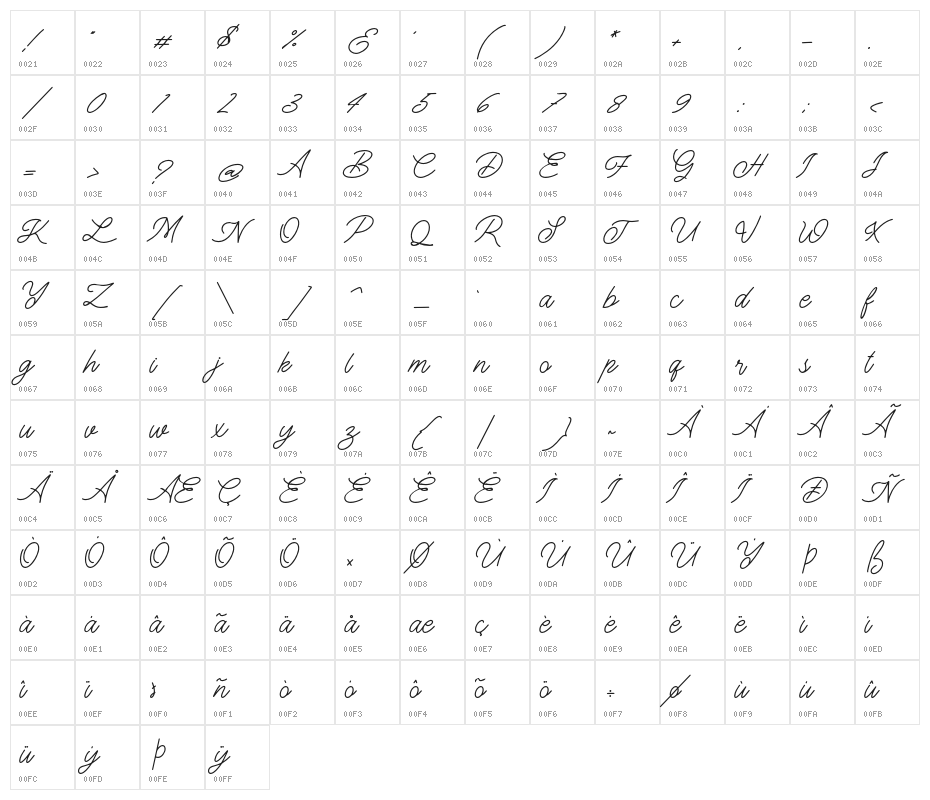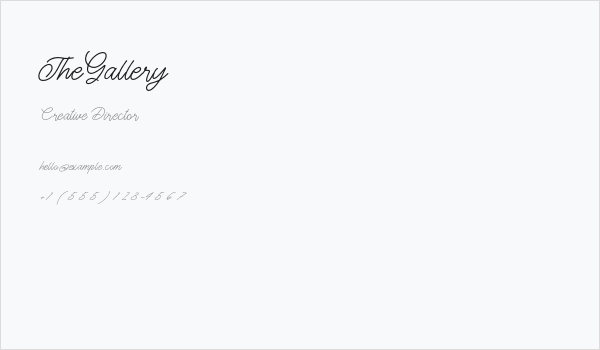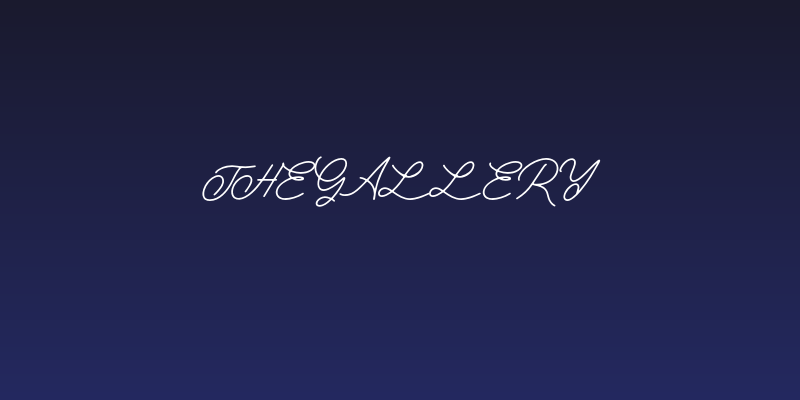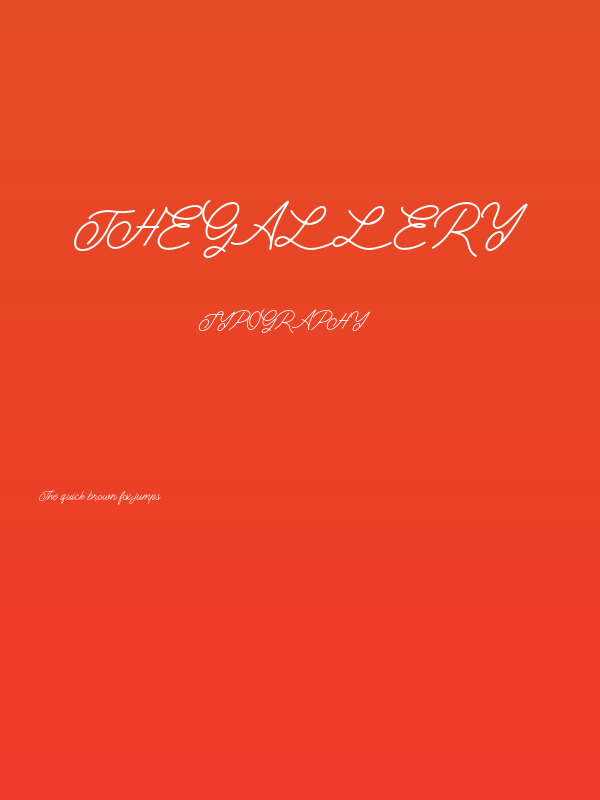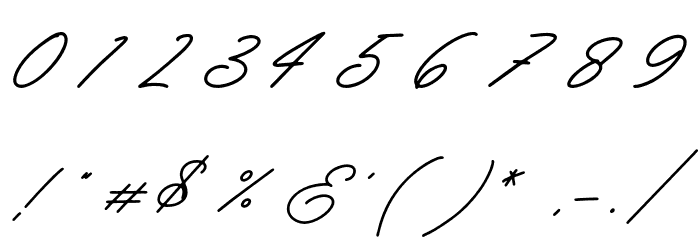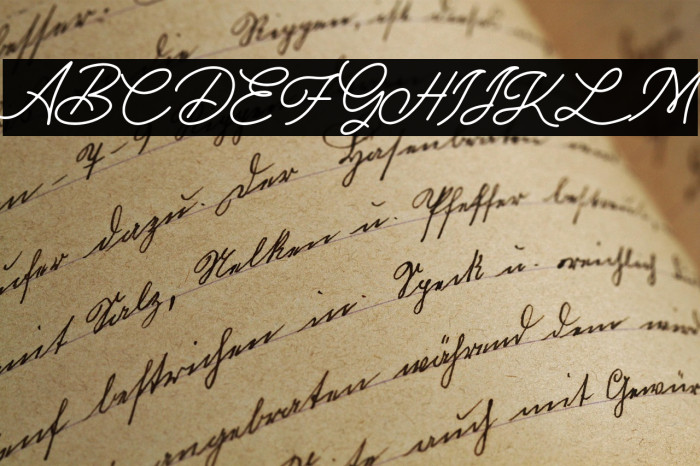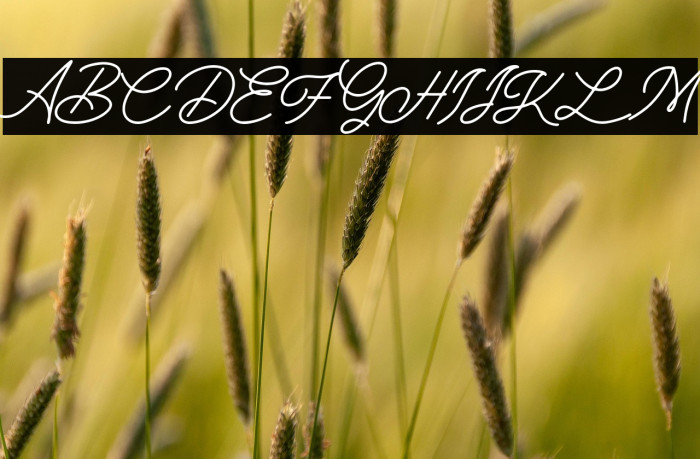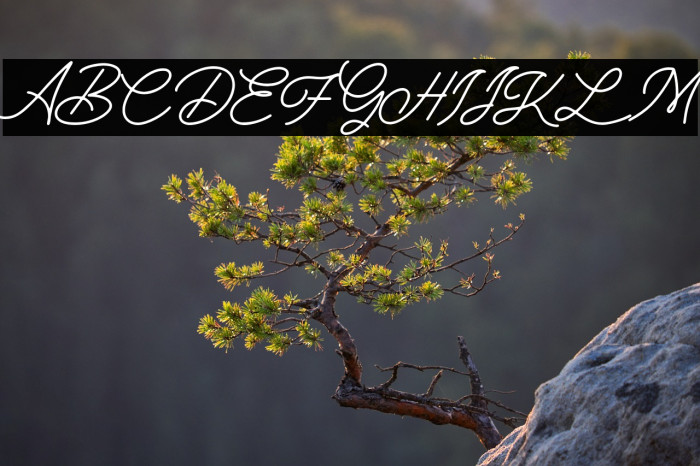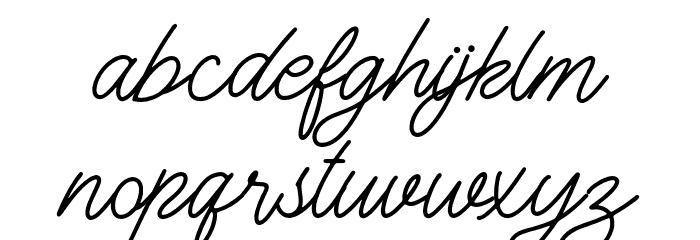
TheGallery Font
TheGallery Description
This elegant script font features fluid, connected strokes that mimic the natural flow of handwriting. The uppercase letters are ornate with sweeping curves, while the lowercase letters maintain a consistent rhythm, enhancing readability. The numerals are distinct yet harmonize well with the overall style, and the special characters are crafted to match the font's sophisticated aesthetic. This font exudes a sense of grace and refinement, making it ideal for formal and decorative applications.
| Proposed Projects | Ideal for wedding invitations, greeting cards, elegant branding, and personal stationery. |